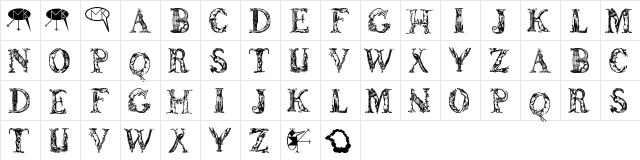
LettersAnimales Regular
| Foundry | Manfred Klein |
Design Context for LettersAnimales Typeface
LettersAnimales is a composed and adaptable typeface that performs quietly and consistently across a wide range of design contexts.